There are lots of fonts to choose from online in many different designs. One design that Iβm drawn to is the brush font. This font design has an artistic element that stands out no matter how simple or complex the fontβs design. In this article, weβll look at 22 brush fonts to add a hand painted element to your design.
1. Atmosphere
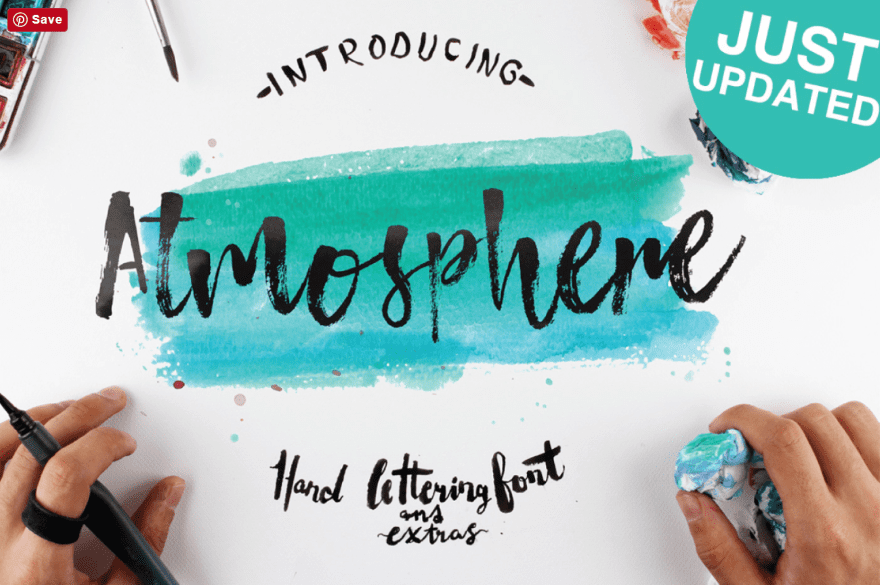
Atmosphere is a hand-drawn font with natural brush strokes to create an authentic brush texture. It includes upper and lowercase characters, numbers, punctuation, and symbols. It also comes with 20 watercolor splotches to use in your typographic pieces. Itβs free for personal and commercial use.
2. Banaue Extended
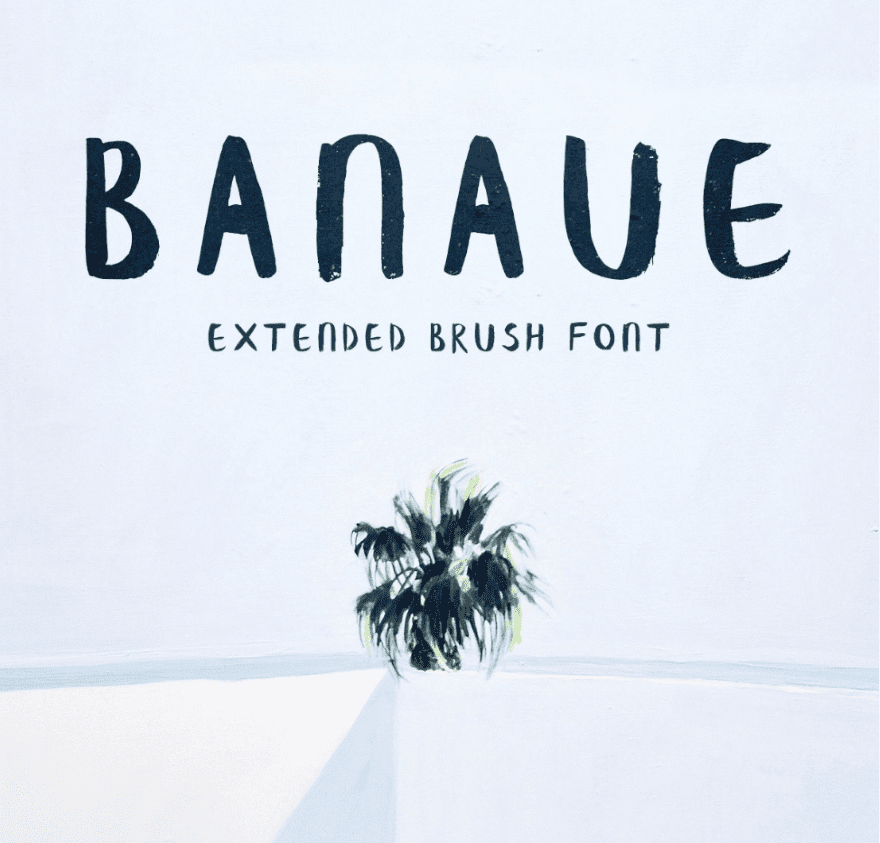
Banaue Extended is the premium version of the free font β Banaue. It contains 329 characters including upper and lower case letters, numbers, symbols, Cyrillic letters, and EU country based glyphs. It includes characters for seven languages. There are multiple licenses to choose from.
3. Besom
Besom was painted by hand with a brush that resembles a raw besom. It has Latin extended, 156 characters, and the free version only includes uppercase letters. The premium extended version includes glyphs, a Cyrillic and Latin extended character base, and lower case letters.
4. Blusty
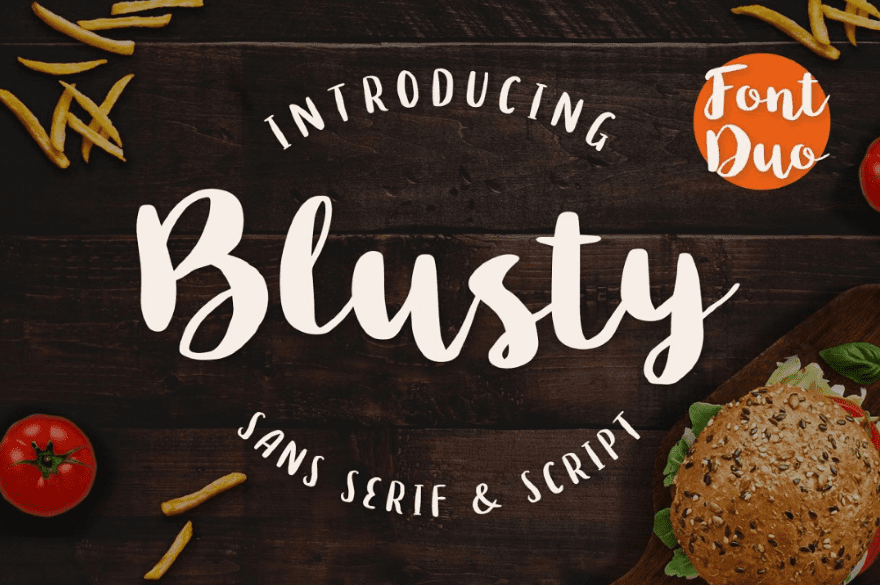
Blusty is a handwritten font duo with sans serif and a script font thatβs based on real handwriting. It includes upper and lower case, stylistic alternatives, standard ligatures, numbers, punctuation, and accents for multi-lingual characters. It can be used for unlimited personal or commercial projects, and for unlimited sales of end products.
5. Brux
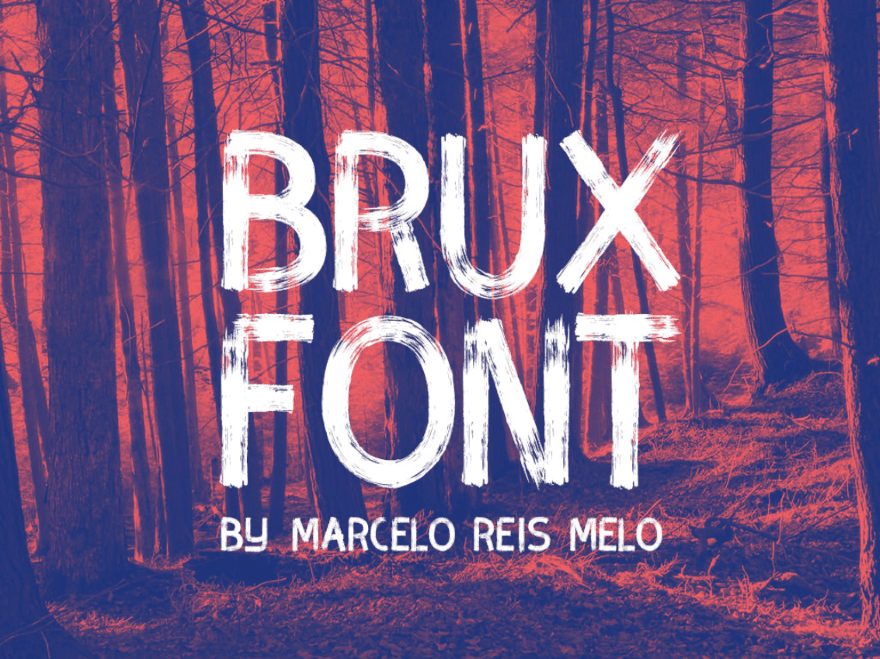
Brux is a brush font with thick strokes and a drybrush look. It includes English, German, and Spanish characters in capital letters. It also includes numbers, punctuation, and symbols. Use it for personal or commercial use.
6. Debby
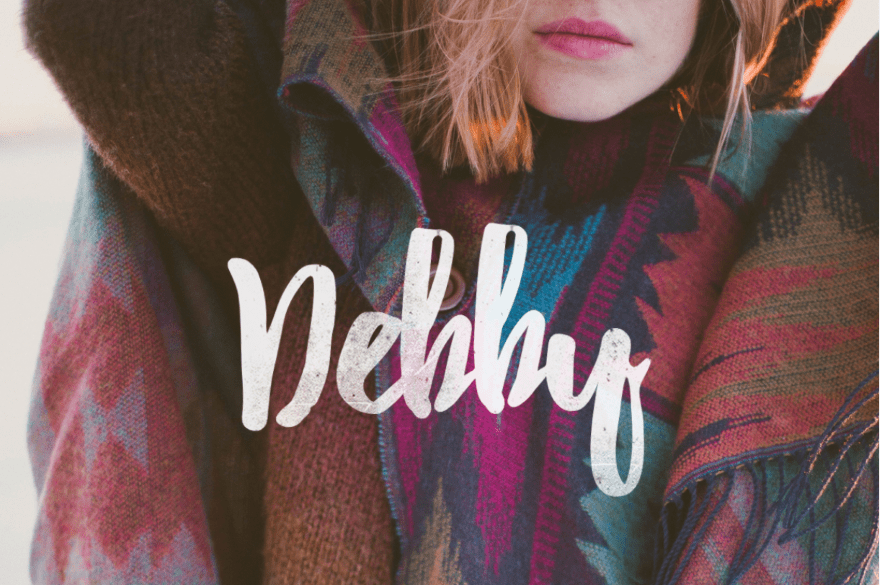
Debby is a hand-drawn brush font thatβs designed to look natural with its irregular bouncy characters and the rough shapes. It includes upper and lower case, numbers, punctuation, and symbols.
7. Dreamers Brush
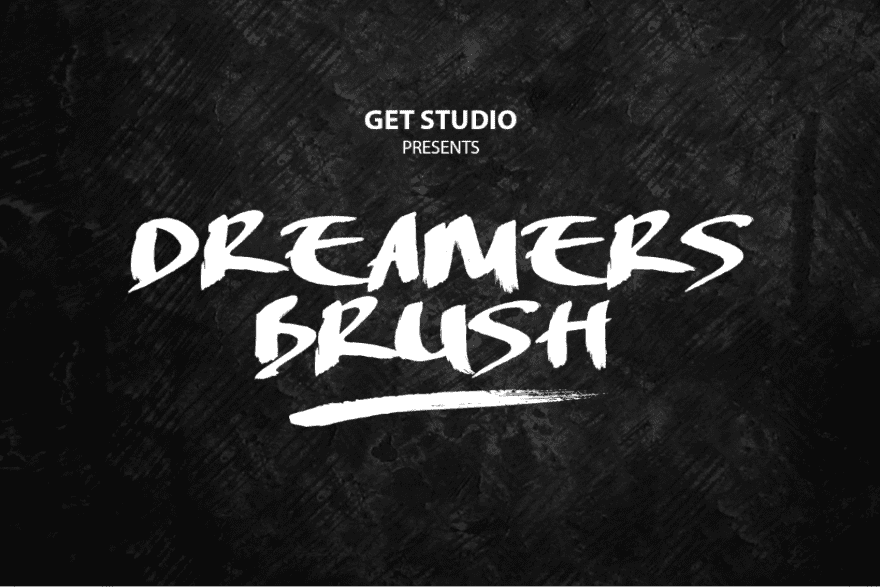
Dreamers Brush is a hand-made brush font that was designed to create a hand-lettered look. It includes upper and lower case letters, numbers, punctuation, and symbols.
8. Ematodas
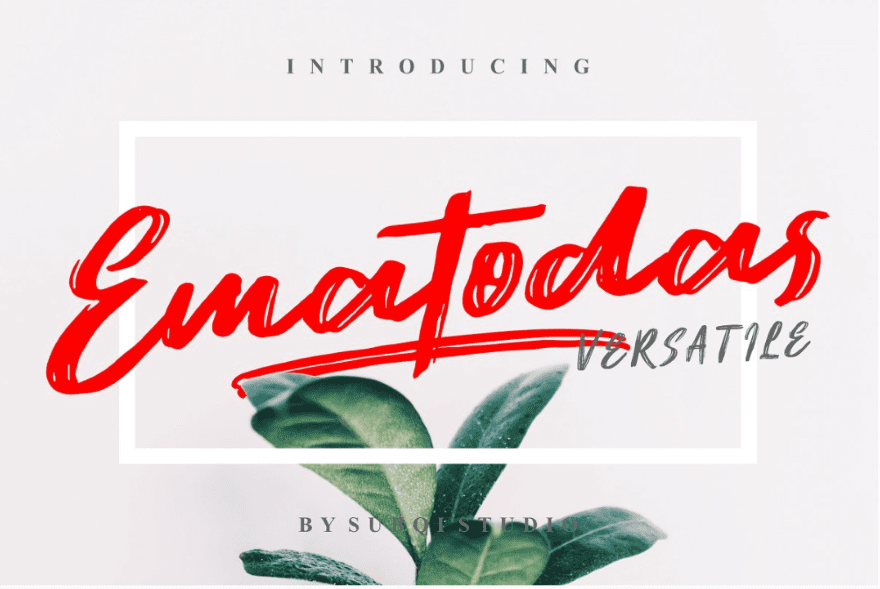
Ematodas is a bold brush handwritten typeface that has a drybrush texture. It includes upper and lower case, numbers, punctuation, symbols, ligatures, and stylistic alternates. It can be used for unlimited personal or commercial projects, and for unlimited sales of end products.
9. Goatskin Brush
Goatskin Brush is a brush font with an Asian style. It has both thick and thin brush strokes. It includes upper and lower case letters, punctuation, and symbols. Thereβs a free version for non-commercial use, and there are lots of licenses to choose from.
10. Hensa
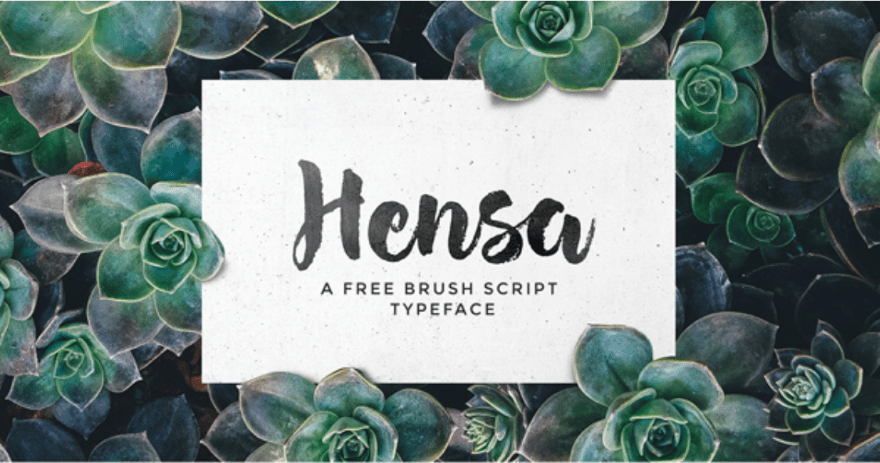
Hensa is a hand-painted brush script typeface that includes lower and upper case letters, punctuation, numbers, and ligatures. It also has several swashes. This one looks especially interesting where the letters have a variation in the amount of ink.
11. Honeysuckle
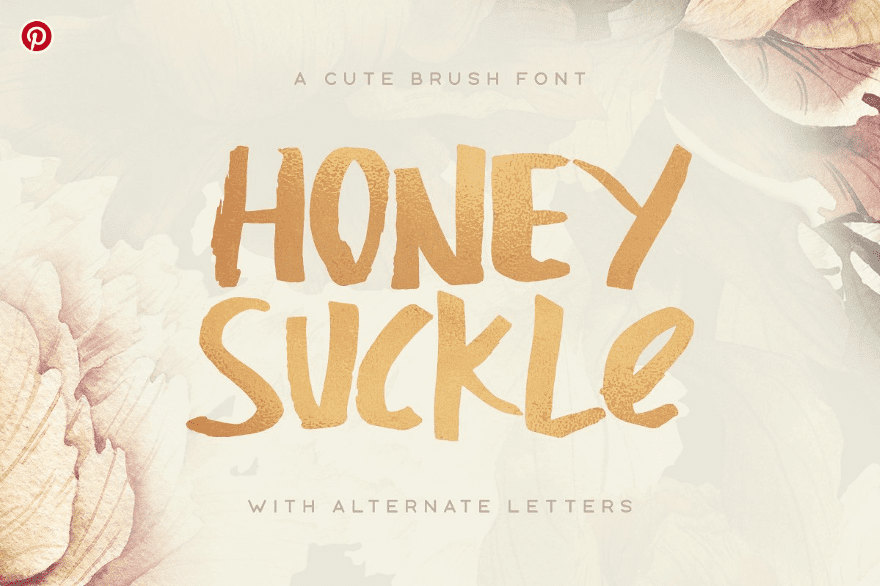
Honeysuckle a cheerful and cute brush font that comes with default letters, alternate letters, punctuation, numbers, and multilingual support. It also includes extra swashes and decorative elements to create fancy lines. It can be used in unlimited commercial projects including sales of end products.
12. Kust Extended
Kust Extended is the premium version of the free font β Kust. Itβs a handwritten typeface that was drawn on hard paper with a thick brush using pure black ink to give every letter a distorted look. It includes 430 characters with upper and lower case, numbers, punctuation, symbols, Latin, Cyrillic, and more.
Price: $4.95 | More Information
13. Macbeth
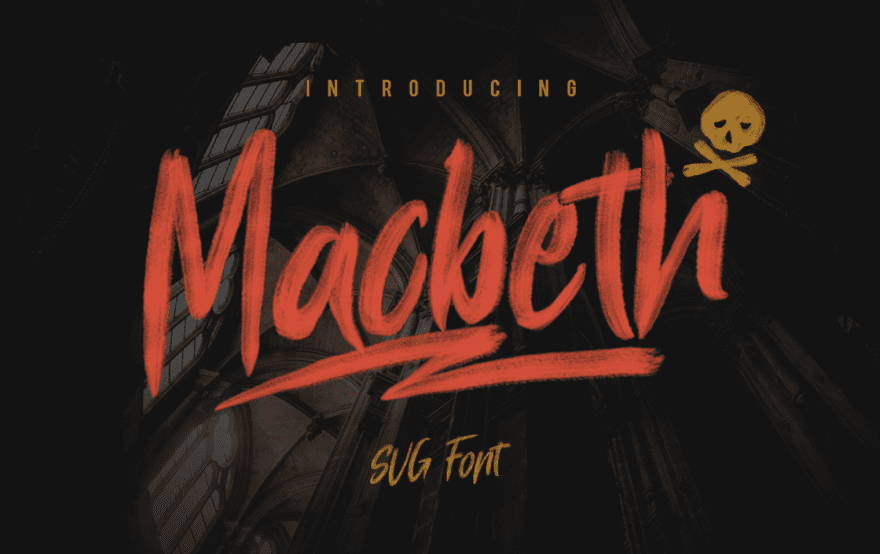
Macbeth is an aggressive hand-drawn font with extra-visual brush marks. It includes uppercase and lowercase characters, numbers, punctuation, and extra marks including lines, squiggles, symbols, etc. Itβs free for personal and commercial use.
Price: Free | More Information
14. Mazak
Mazak is a hand-drawn brush font with thick lines. Many of the letters look as if theyβve almost ran out of paint. It includes uppercase letters, numbers, punctuation, and symbols.
Price: Free | More Information
15. Odachi
Odachi is a rough brush font thatβs inspired by Japanese design. It has capital letters and includes default letters, alternates, numbers, and punctuation. Itβs completely free for any commercial use.
Price: Free | More Information
16. Peomy
Peomy Extended is a Pro version of the βSimple Caps only Peomyβ brush font. It includes upper and lower case letters, numbers, punctuation, and symbols. The letters are brushed with a fude brush using thick black ink on pastel paper. It also includes 150 illustrations and 24 logos. There are multiple licenses available.
Price: $4.95 | More Information
17. Rustico
Rustico is an all-caps typeface with an italicized stance and an authentic brush texture that stands out and makes a bold statement. It also includes numbers, punctuation, and symbols. Itβs free for personal and commercial use.
Price: Free | More Information
18. Salted Mocha
Salted Mocha is a hand drawn brush script typeface that was designed on the iPad Procreate app using a brush pack. It features loopy strokes and a bouncing baseline to create playful upper and lower case fonts. Itβs free for personal and commercial use.
Price: Free | More Information
19. Selima
Selima is an elegant brush font that looks great for handwritten text. It includes upper and lower case characters, numbers, punctuation, and symbols. Itβs free for personal and commercial use.
Price: Free | More Information
20. Sophia
Sophia is a hand-lettered brush script font designed to give a sweet, saucy, and shabby look. Itβs multi-lingual and comes with standard upper and lower case, alternate upper and lower case, numbers, punctuation, symbols, alternate glyphs, stylistic combinations, and right and left variations to create an ornamental design. Itβs free for personal and commercial use.
Price: Free | More Information
21. Takhie
Takhie is a 100% hand-drawn multi-lingual brush font with a tall design that includes Latin, Greek, punctuation marks, diacritics (accent marks), and numbers. It comes with both upper and lower case fonts. Thereβs also a premium edition available.
Price: Free | More Information
22. Youther
Youther is a font duo with standard and script fonts with a brush layered style. Itβs multi-lingual and includes upper and lower case, numbers, punctuation, symbols, ligature, stylistic alternate, contextual alternate, and swashes. It can be used for unlimited personal or commercial projects and unlimited sales of end products.
Price: $17 | More Information
Ending Thoughts
Thatβs our look at 22 brush fonts to add a hand painted element to your design. Many are free. Some may require you to sign up for their newsletter. As usual, Iβve avoided anything that requires a membership.
Brush fonts have interesting designs and Iβve noticed they capture my attention. Theyβre great for logos, posters, printed materials, headers, banners, ads, and lots more. Whatever you need brush fonts for, youβre bound to find something on this list thatβs perfect for your project.
Am I the only one who has completely fallen in love with the first atmosphere font?